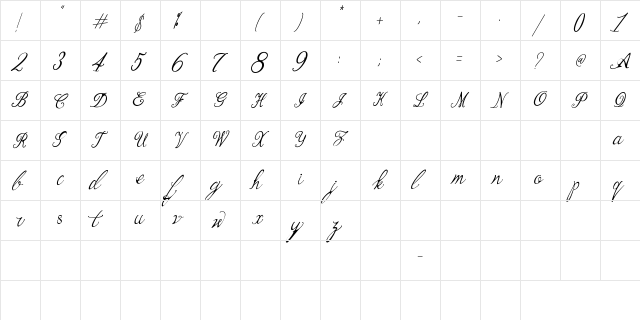
Bernadine Script Italic
Design Context for Bernadine Script Typeface
Bernadine Script brings a calligraphic fluidity to the page — its connecting strokes and expressive curves give it an unmistakably human quality.
Font Pairing: Combine Bernadine Script with a simple geometric sans for maximum contrast — the tension between flowing curves and clean structure is a classic typographic pairing.
Pro Tip: Use Bernadine Script for short runs of text — names, titles, or taglines. Extended body copy in script faces tires the eye quickly.